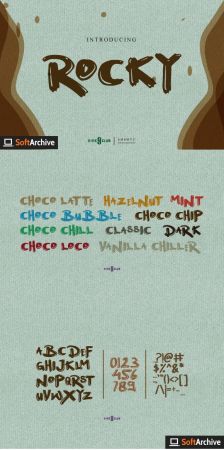
DesignOptimal - Rocky Font
DesignOptimal.com - Rocky Font
Rocky font embodies fun, quirkiness and authenticity. This enchanting handwritten font will turn any creative idea into a true standout.